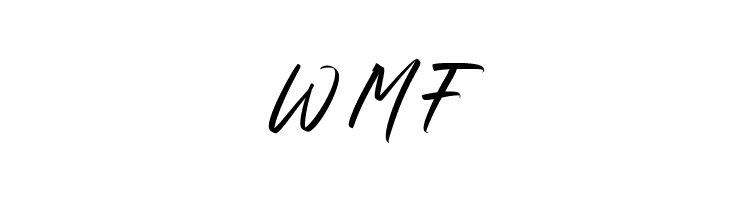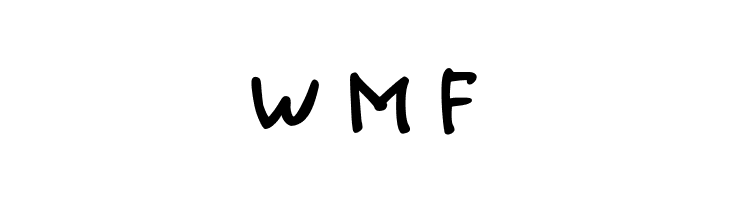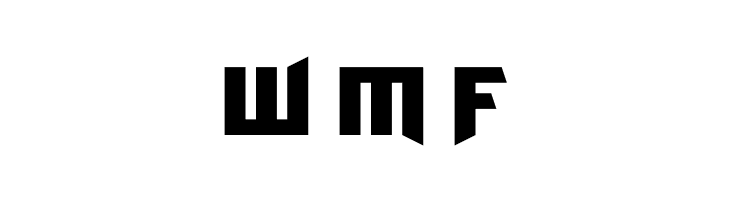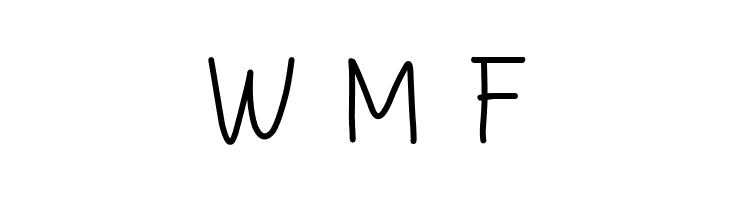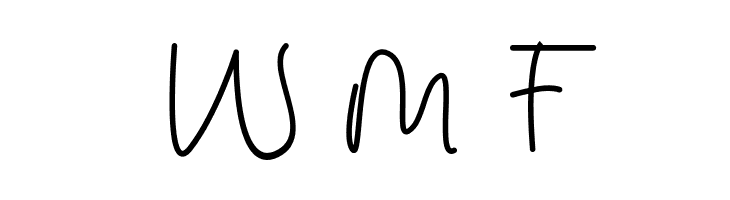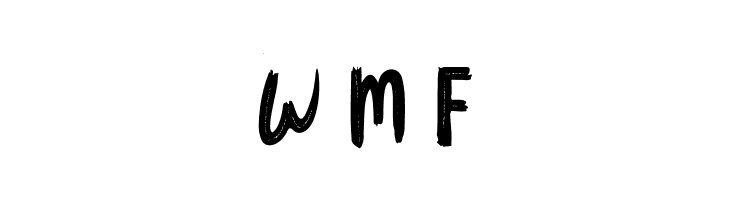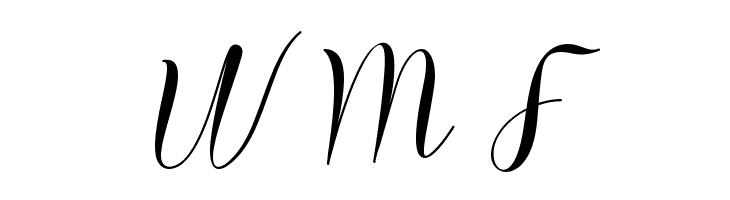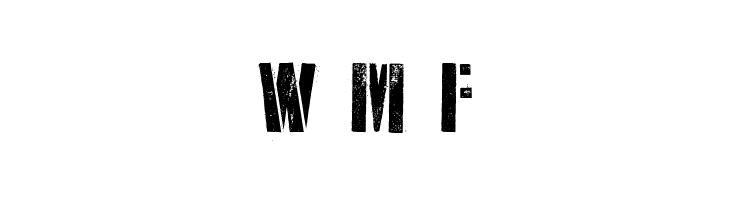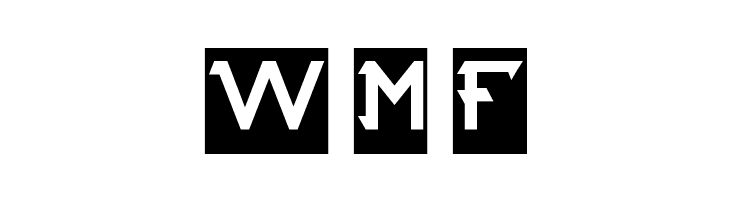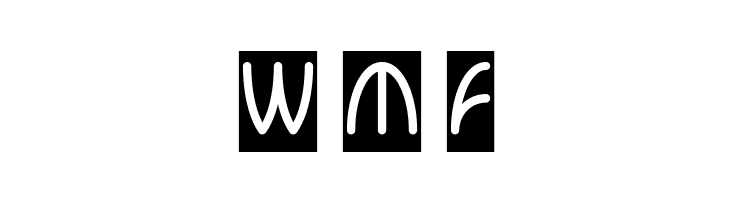
A modern, elegant script font with flowing, interconnected strokes.
A bold, brush-style font with an energetic and hand-drawn appearance.
A bold, geometric font with a futuristic, edgy design.
A bold, futuristic italic font with sharp angles and high contrast.
A bold, expressive brush-style font with a hand-painted look.
A bold, angular font with a futuristic and edgy design.
A bold, angular font with a futuristic, cyberpunk aesthetic.
A futuristic, circuit-inspired decorative font with bold geometric designs.
A bold, futuristic font with sharp, angular lines and a geometric structure.
A bold, italicized font with a futuristic, angular design.
A bold, italic font with a futuristic and angular design.
A hollow, geometric font with sharp, angular edges and a futuristic style.
A bold, hollow, geometric font with a futuristic and tech-inspired design.
A bold, angular, and futuristic font with a geometric design.
A futuristic, angular font with sharp edges and geometric shapes.
A bold, distressed stencil font with a vintage, industrial feel.
A bold, decorative font with bamboo-inspired elements.
An elegant and flowing script font with ornate, graceful curves.
A playful, casual handwritten font with flowing strokes and a whimsical touch.
A playful, handwritten font with smooth curves and a casual style.
A decorative script font with floral embellishments and elegant, flowing letterforms.
Handwritten script font with a casual, flowing style.
A bold, geometric font with a modern and futuristic design.
A bold, expressive handwritten font with a lively, cursive style.
A bold, playful font with a hand-drawn, dynamic style.
A playful, handwritten font with a casual and whimsical style.
A casual, handwritten font with a friendly and approachable style.
A bold, flowing script font with dynamic curves and expressive style.
A lively handwritten font with dynamic strokes and playful character.
A playful, casual handwritten font with smooth curves and uniform strokes.
A decorative script font with elegant swirls and loops.
A casual, handwritten cursive font with smooth, flowing lines.
A playful handwritten font with a casual and friendly style.
A playful, handwritten font with tall, narrow letters and rounded edges.